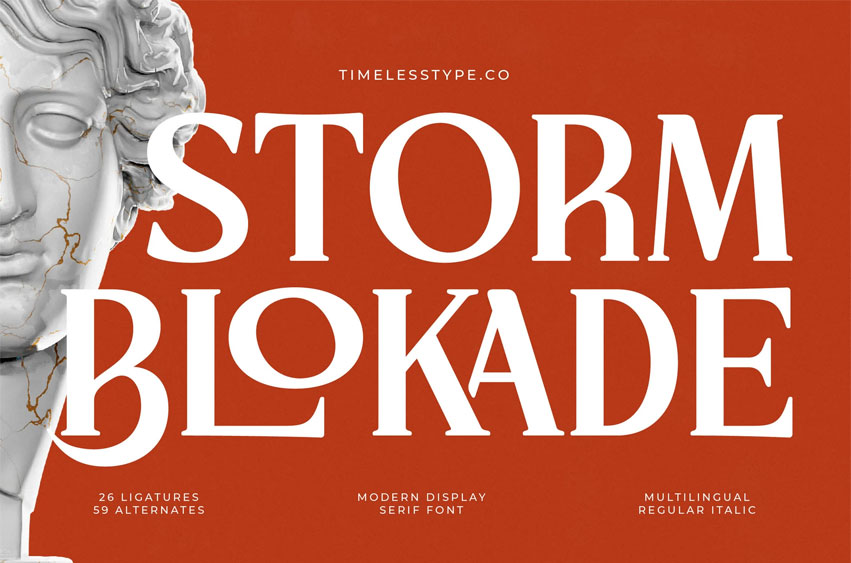
Storm Blokade Font
Storm Blokade Font is a modern display serif font that combines classical confidence with a powerful contemporary edge. Featuring 26 ligatures and 59 alternates, this font was crafted to command attention — ideal for branding, magazine headlines, posters, packaging, and editorial designs that need sophistication with strength.
Its bold structure and elegant details create a striking contrast that elevates any design, while the inclusion of Regular and Italic styles ensures versatility across both print and digital use. Storm Blokade brings timeless artistry and modern precision together in one impactful typeface.